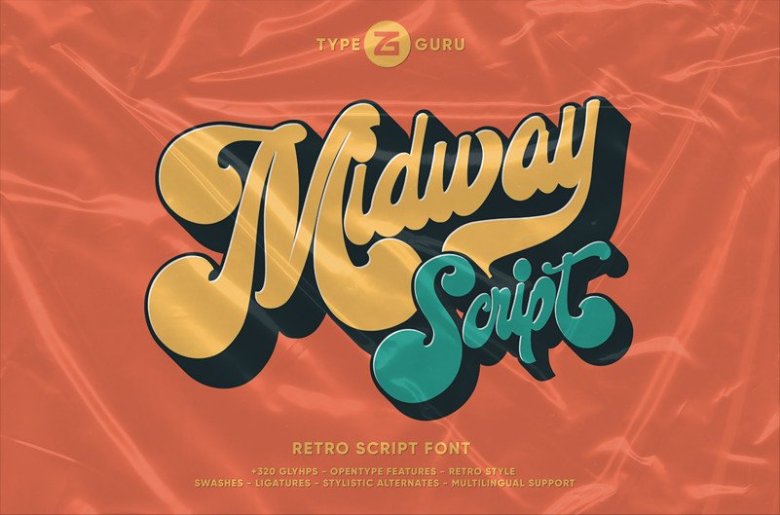
Midway Font
Midway Display Font is a splendid display font package by Ardana Putra. It’s a standout bold script with a touch of vintage look and feel. This type of font perfectly made to be applied especially in logo, headline, signage and the other various formal forms such as invitations, labels, logos, magazines, books, greeting / wedding cards, packaging, fashion, make up, stationery, novels, labels or any type of advertising purpose.